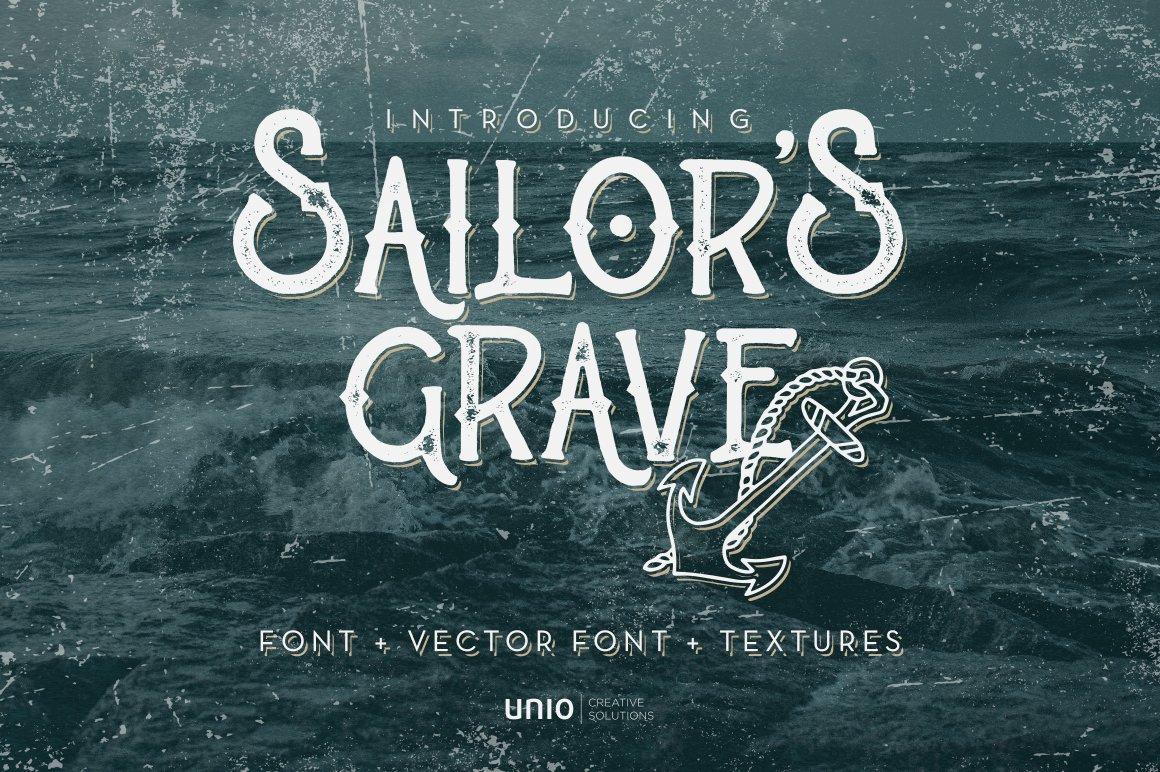
Sailor's Grave Font
Sailor's Grave Font is ideal for nautical branding projects, maritime restaurant signage, pirate-themed designs, vintage ship graphics, coastal business logos, seafaring adventure posters, maritime museum displays, and ocean-inspired merchandise designs.
This exciting Sailor's Grave Font captures the rugged spirit of maritime adventure with its weathered letterforms and seafaring character that embodies the romance and danger of life on the high seas. The font's nautical personality and adventurous aesthetic make it an exceptional choice for projects requiring maritime authenticity, oceanic atmosphere, and seafaring appeal that resonates with audiences fascinated by naval history and maritime culture.
The Sailor's Grave Font family includes multiple maritime variations such as Regular, Bold, Weathered, Anchor, Rope, and Distressed versions, providing designers with comprehensive options for creating authentic nautical brand communications and adventurous typographic compositions with genuine seafaring character.
Navigate typographic waters with Sailor's Grave Font Free Download - a masterfully crafted typeface that channels the authentic spirit of maritime tradition and seafaring adventure. This versatile font combines nautical heritage with contemporary functionality, making it perfect for brands and projects that need to communicate adventure, authenticity, and oceanic mystique.
The maritime character of Sailor's Grave Font makes it particularly effective for coastal restaurants, marine businesses, adventure tourism companies, and nautical retailers that need to convey authentic seafaring spirit and oceanic adventure. Its weathered styling appeals to audiences who appreciate maritime heritage, adventure stories, and coastal lifestyle experiences.
Design professionals choose Sailor's Grave Font for its authentic nautical atmosphere and exceptional visual impact across various maritime applications. The font maintains its seafaring charm from small boat registration graphics to large harbor signage, ensuring consistent maritime branding and adventurous appeal throughout all nautical communications.
The distinctive personality of Sailor's Grave Font creates immediate emotional connections through powerful associations with maritime adventure, naval history, and oceanic exploration. This makes it invaluable for brands seeking to leverage nautical romance and seafaring mystique for marketing campaigns and adventure-themed brand positioning.
Maritime-focused brands utilize Sailor's Grave Font to establish authentic identities that communicate adventure, tradition, and oceanic heritage in competitive coastal markets. The typeface's nautical appeal helps businesses differentiate themselves while attracting consumers who appreciate maritime culture, adventure travel, and authentic seafaring experiences in their lifestyle choices.